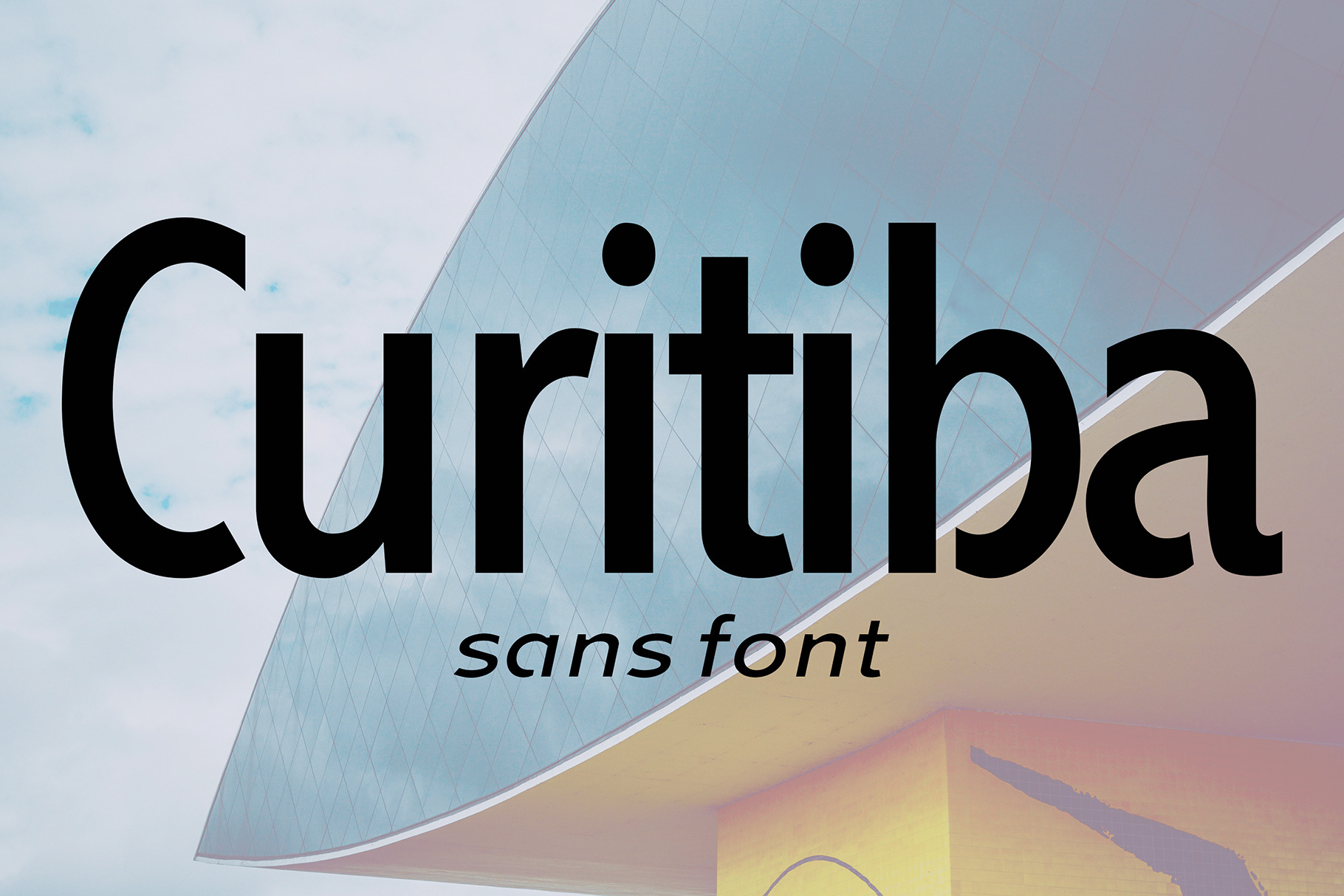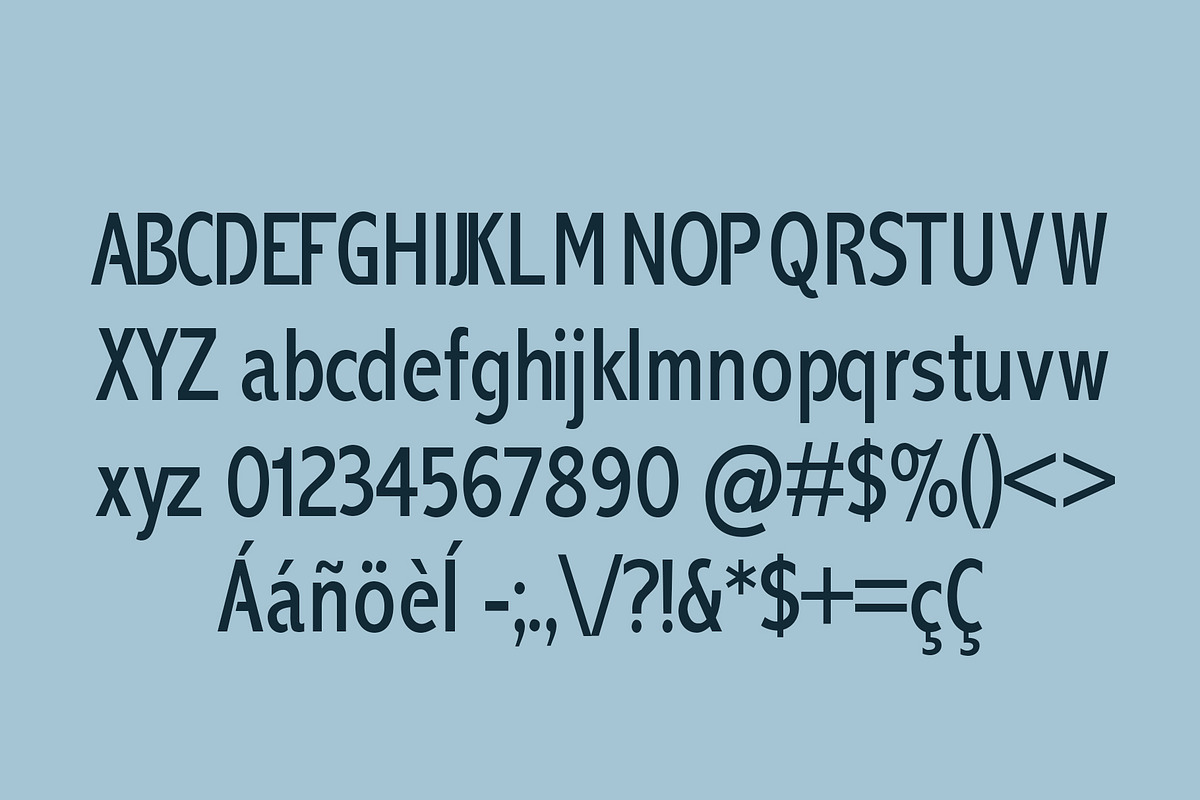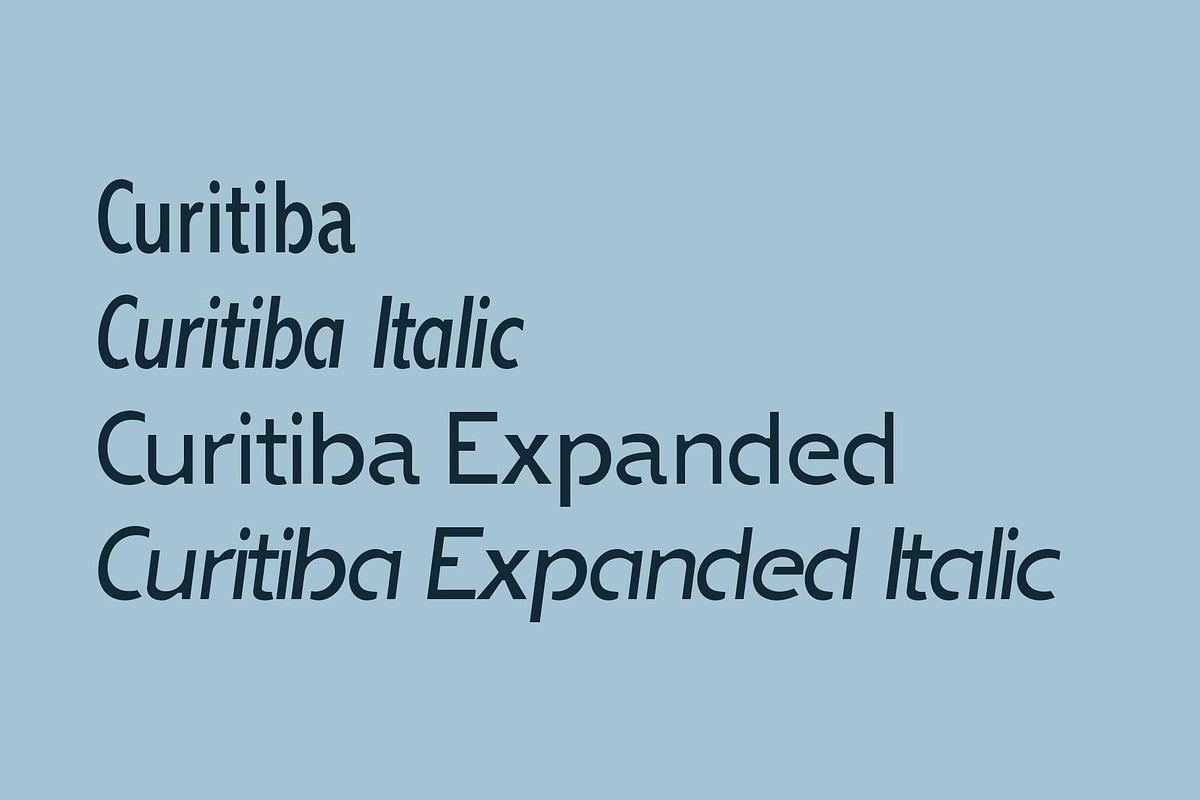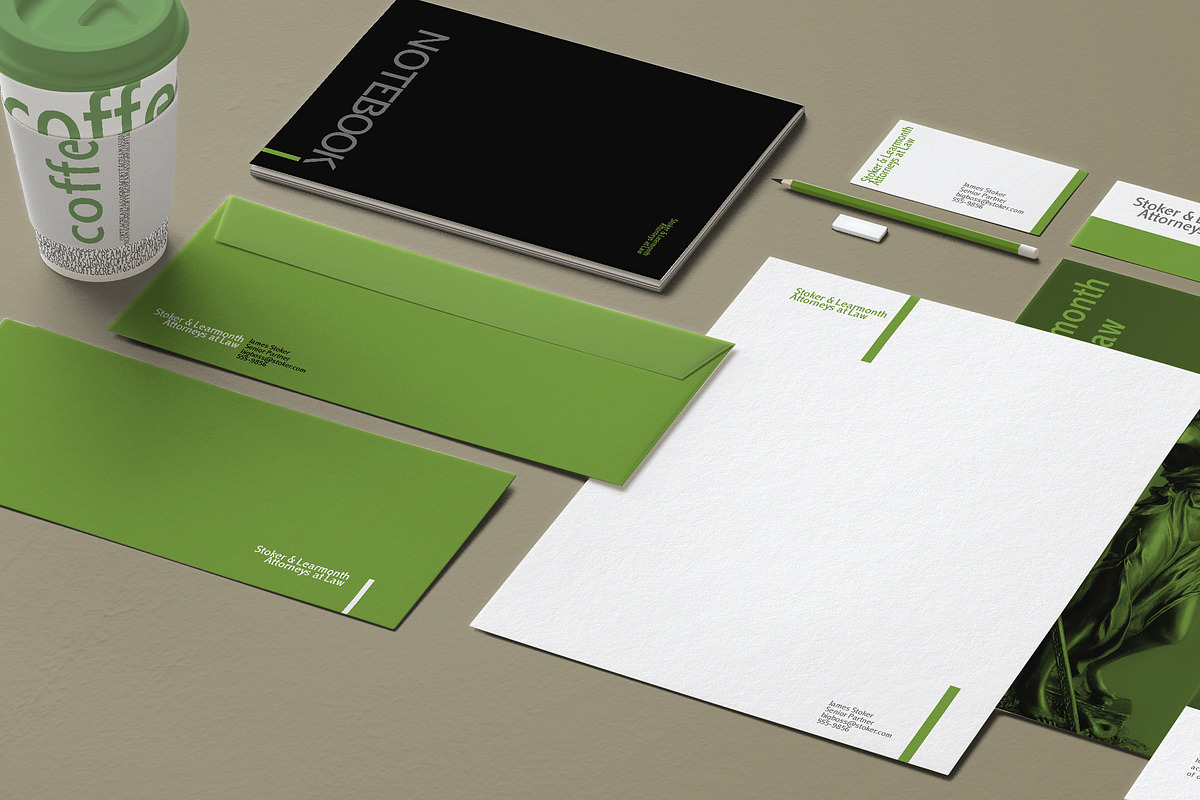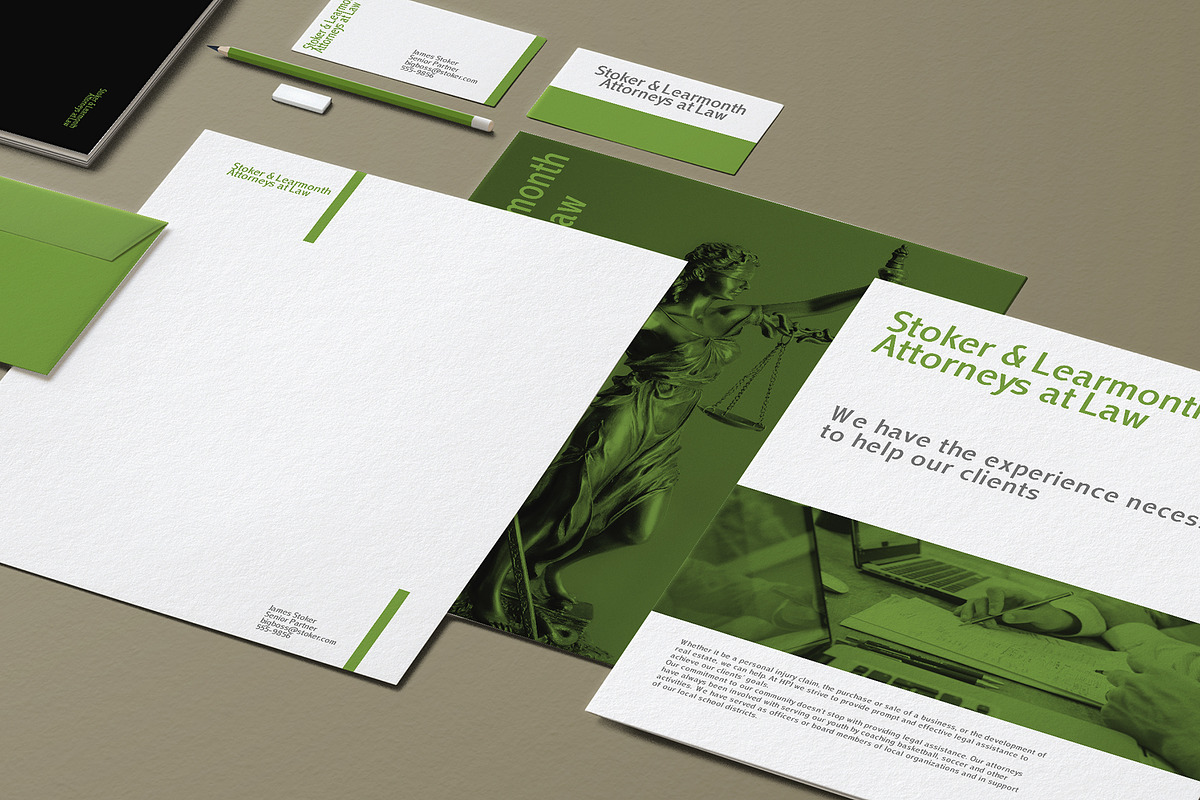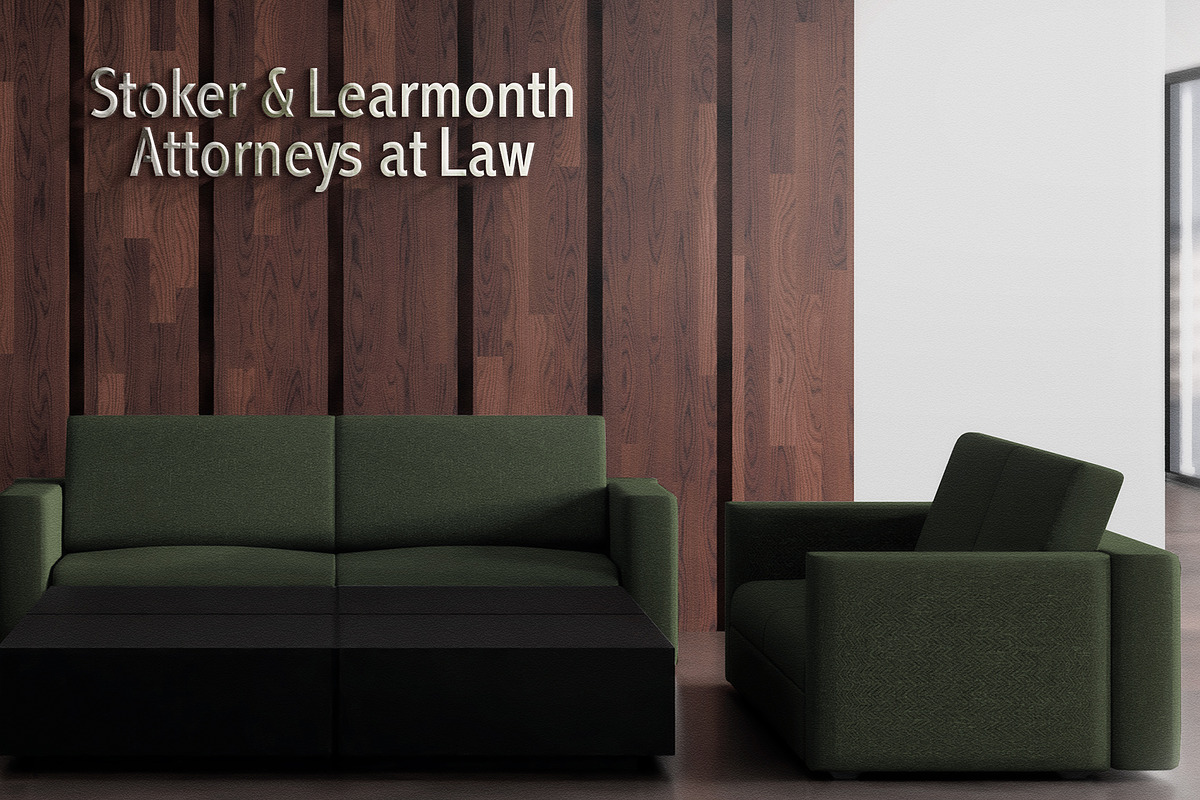
Curitiba - Sans Font
~ Stylish / Sleek / Modern ~
Curitiba is a elegant and sophisticated sans serif font. Inspired by the modern Brazilian architecture. It is named after the city o Curitiba in Brazil where is the Oscar Niemeyer Museum. Curitiba includes accented characters and symbols.
- Curitiba
- Curitiba Italic
- Curitiba Expanded
- Curitiba Expanded Italic
USES
Curitiba works great in any branding, logos, magazines, films and for short texts.